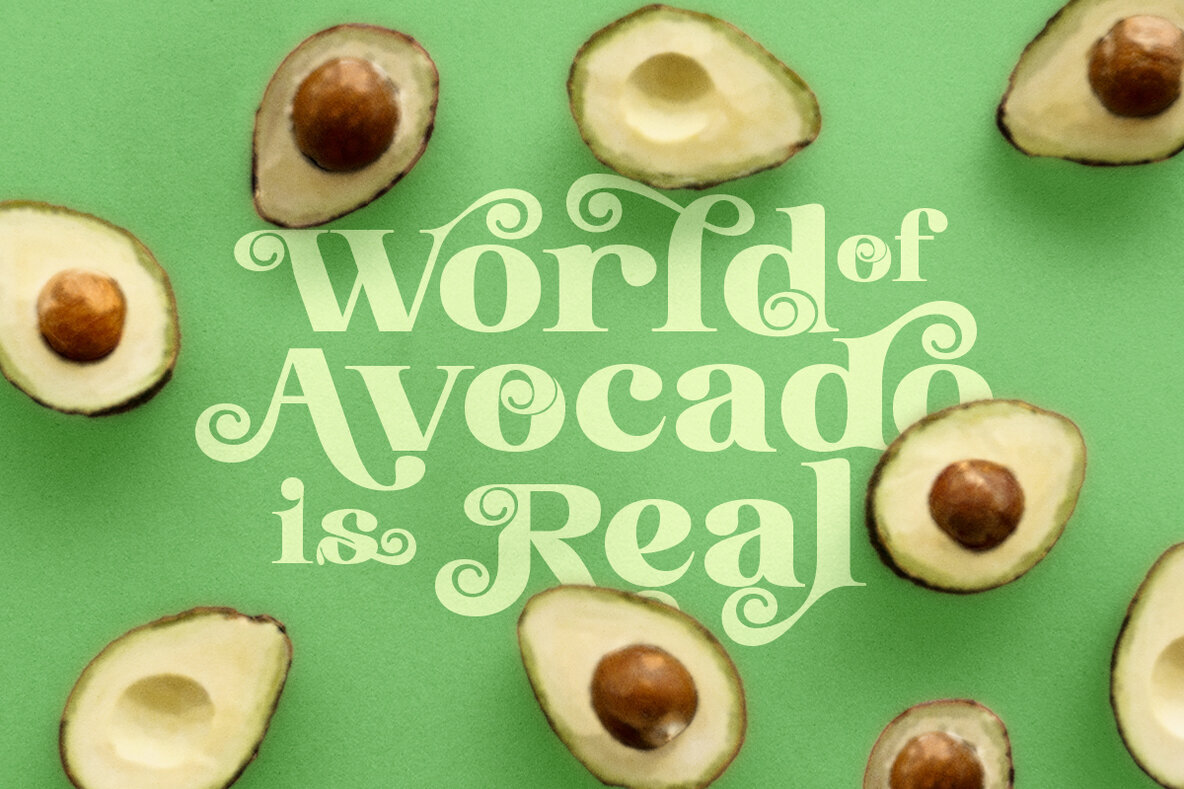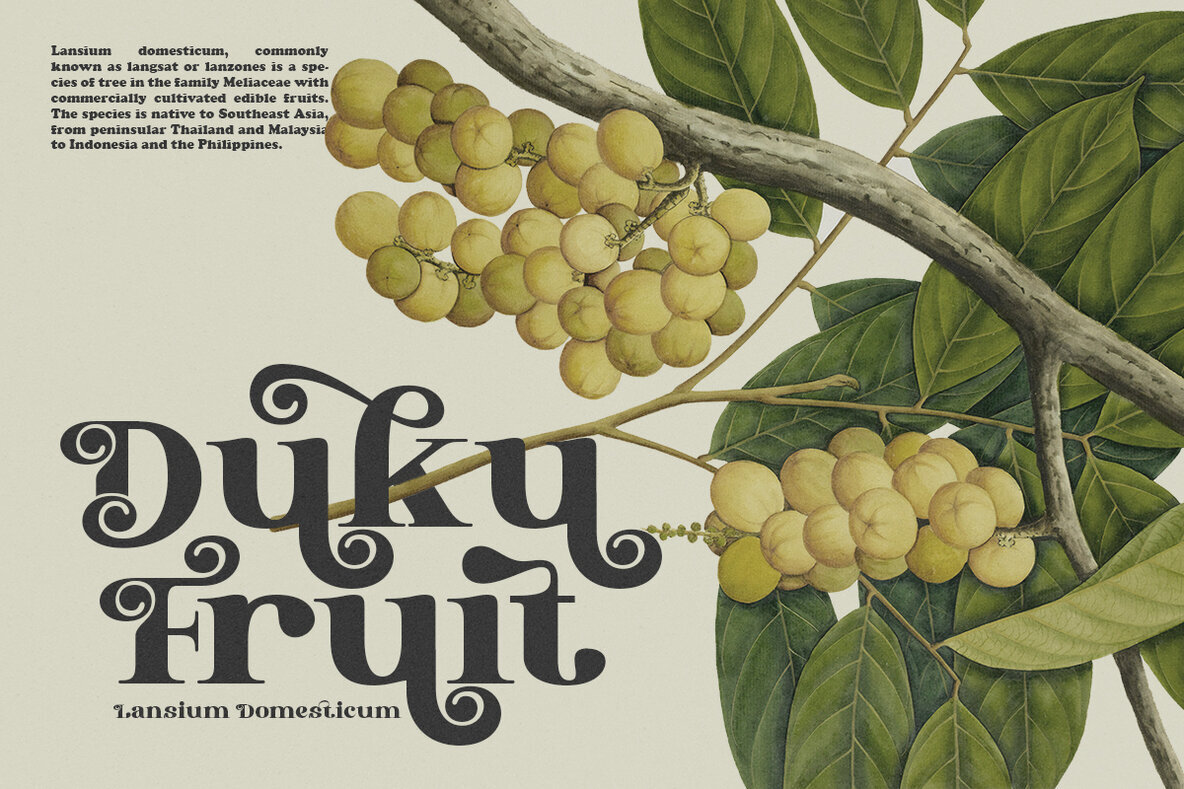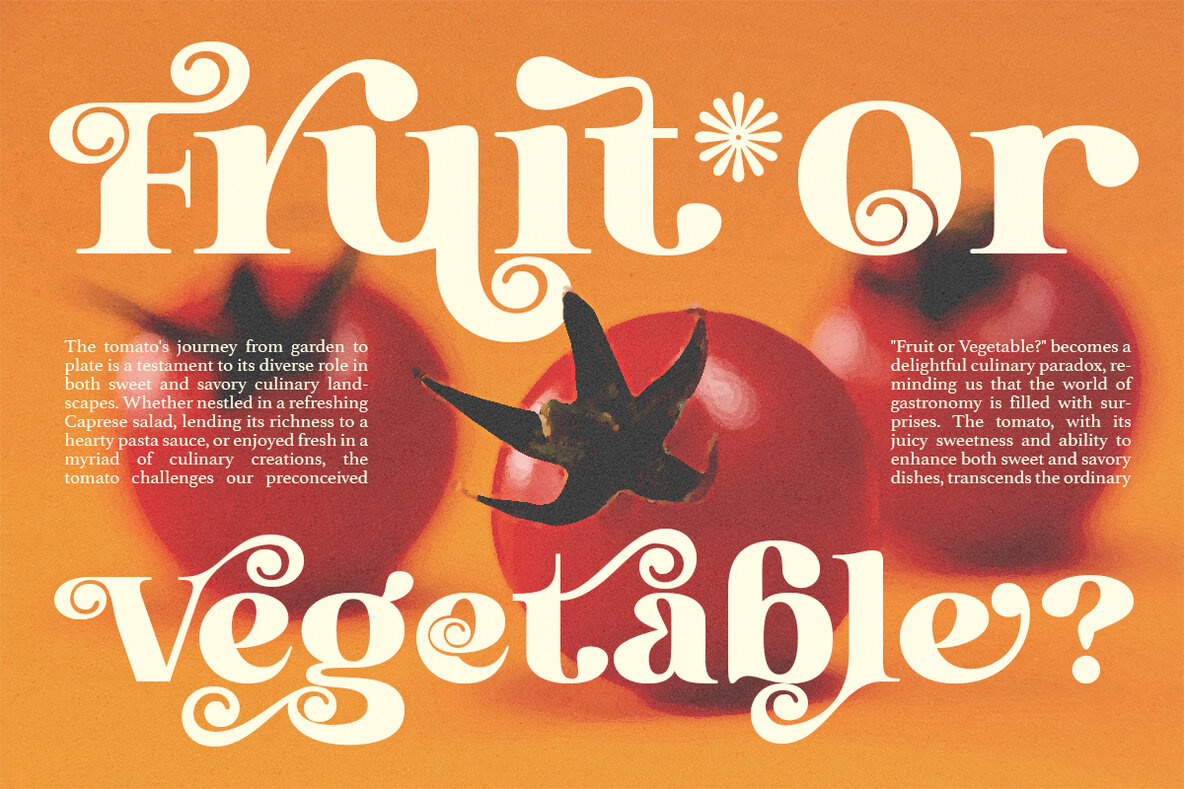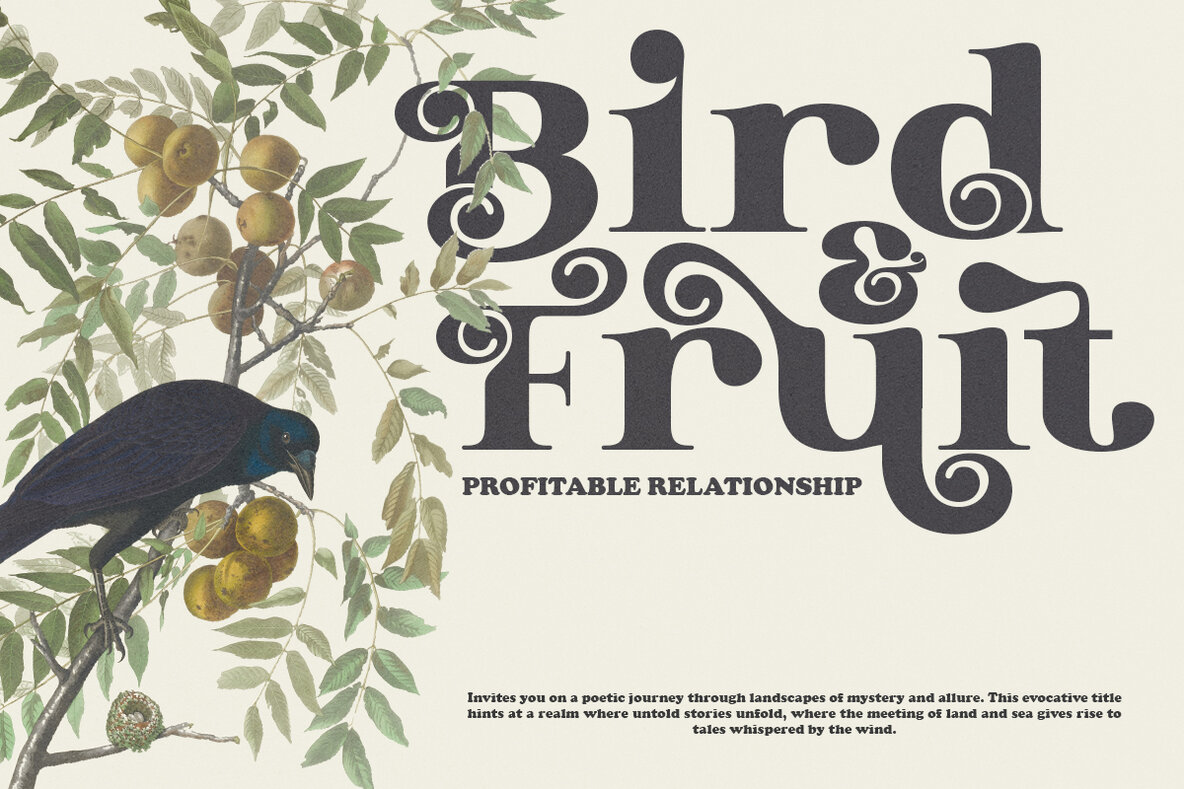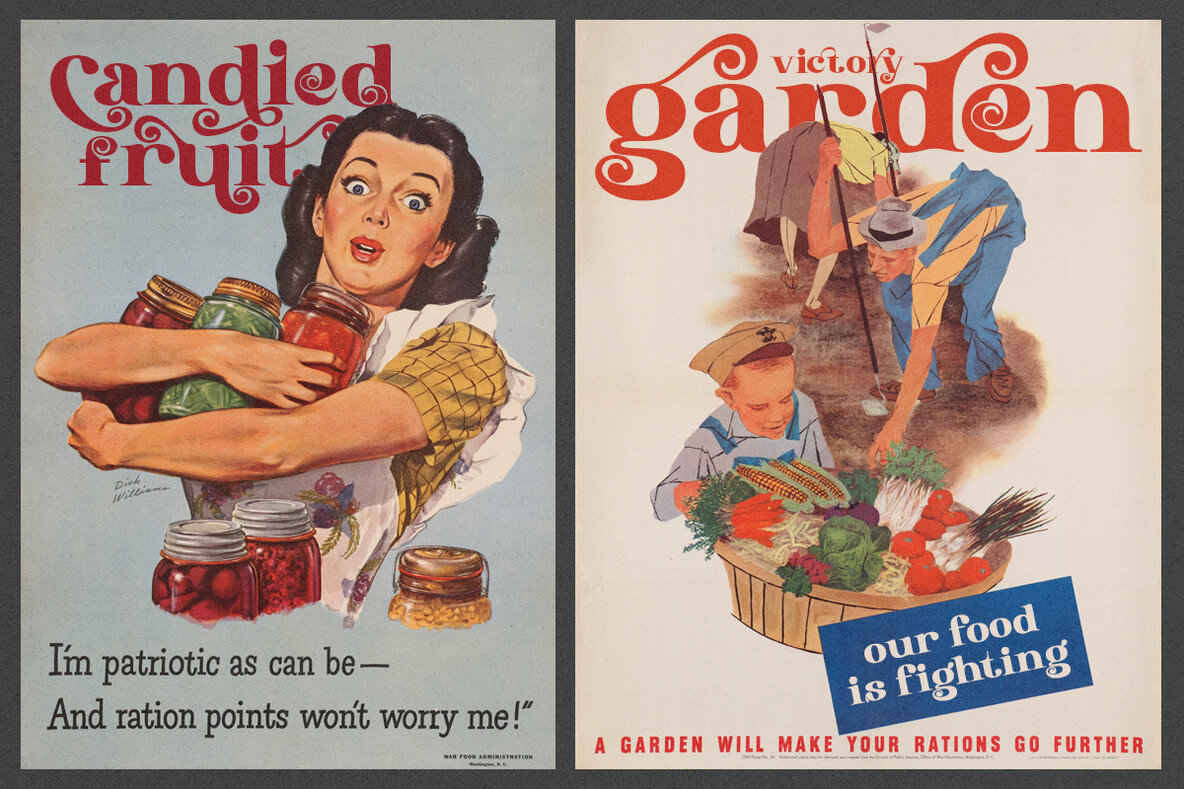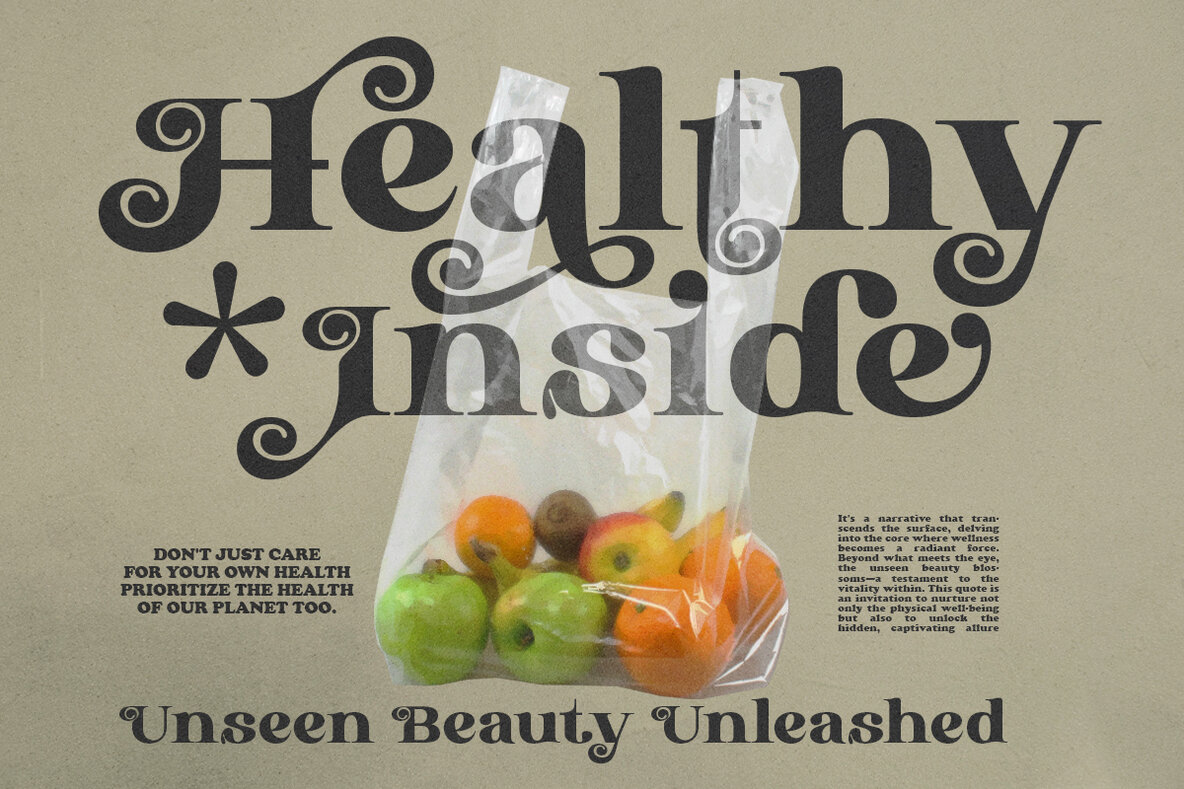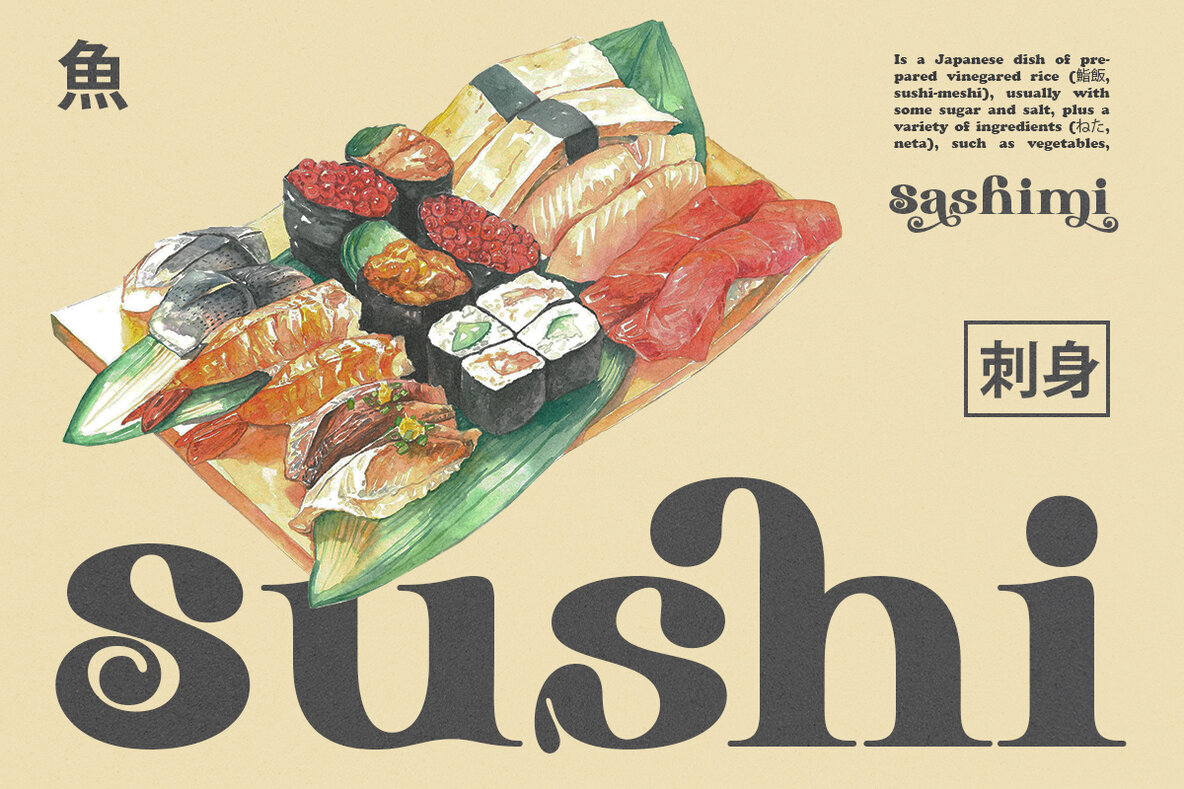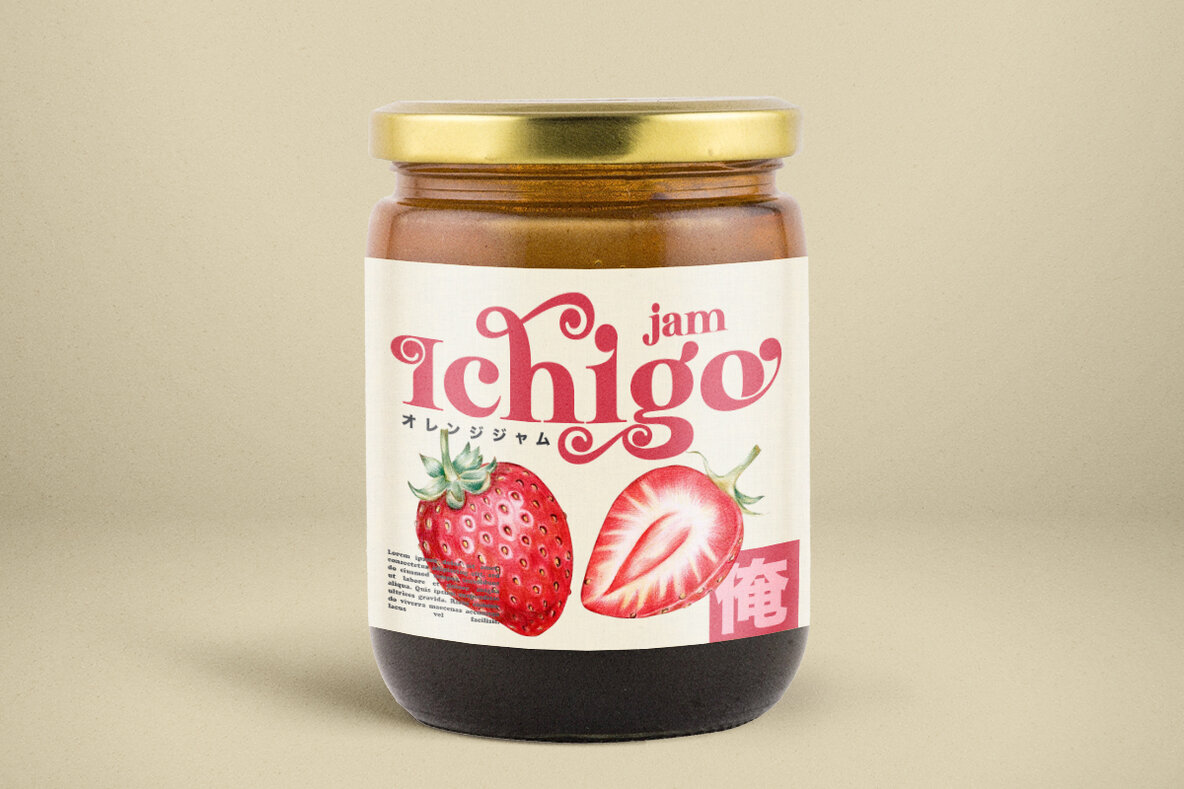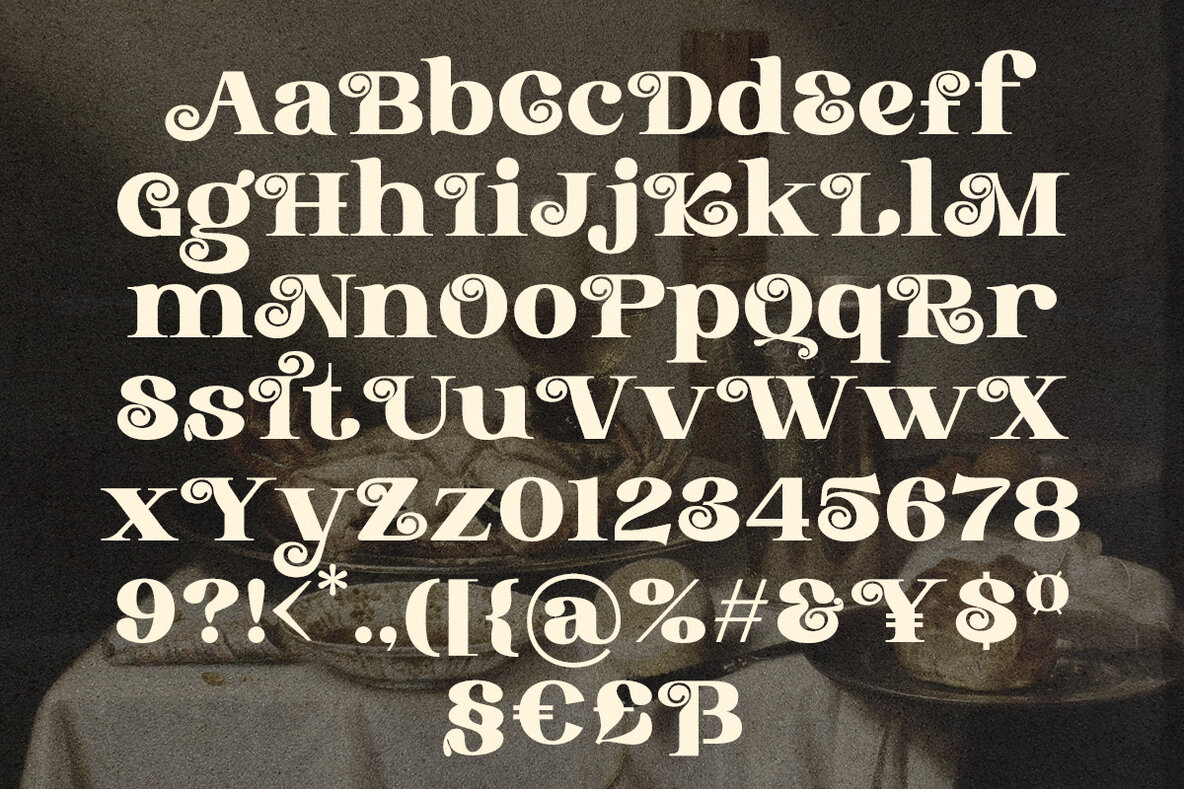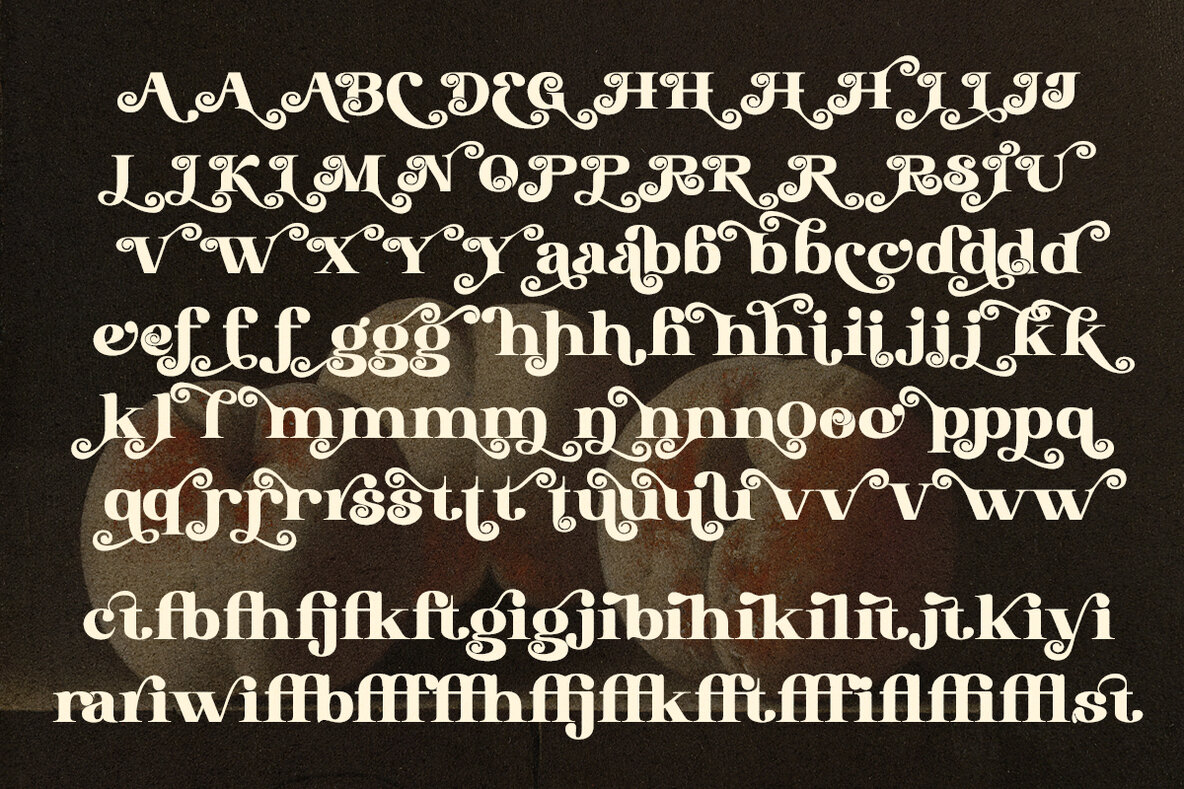
Marghata Font
Marghata Regular
The Marghata font, created by Clevus, is a distinctive serif that combines a classy and retro aesthetic. Perfect for a wide range of design projects, it offers a unique style that adds sophistication to any layout.Marghata: Classy Serif with Retro Elegance